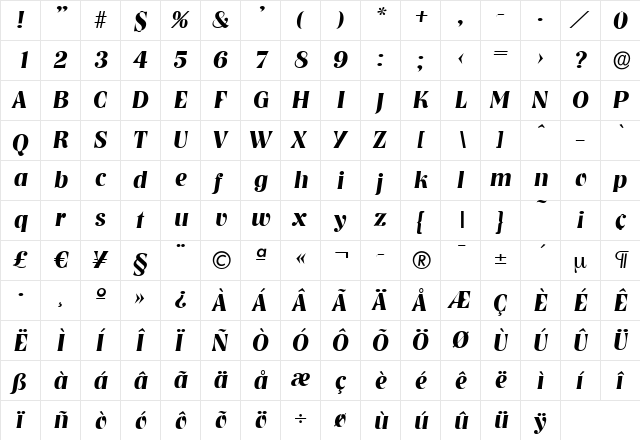
BobBecker Bold Italic
Design Context for BobBecker Typeface
BobBecker is a composed and adaptable typeface that performs quietly and consistently across a wide range of design contexts. The slanted form adds forward momentum and visual energy. The heavy weight commands attention and anchors typographic hierarchies.
Pro Tip: Use BobBecker for emphasis, pull quotes, and subheadings where its slanted energy can add rhythm to the layout.